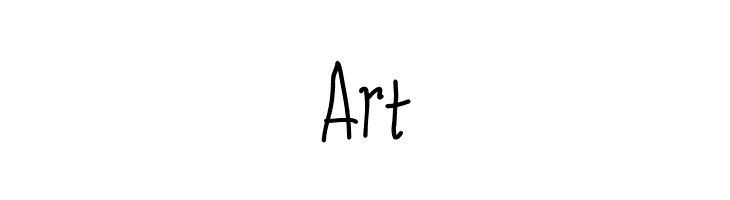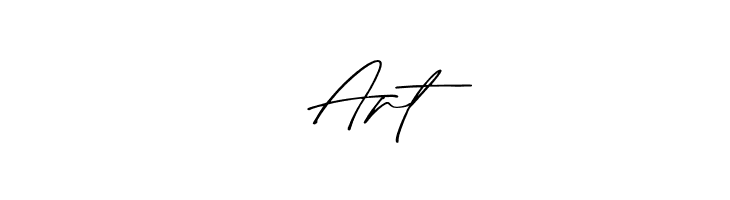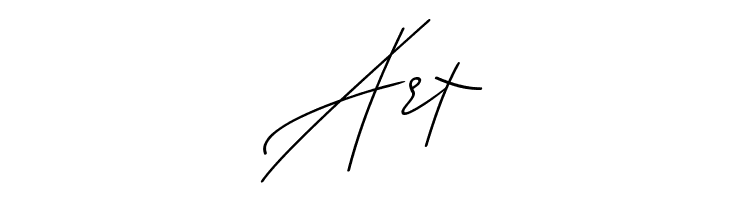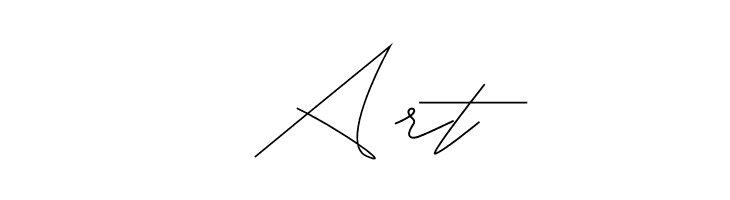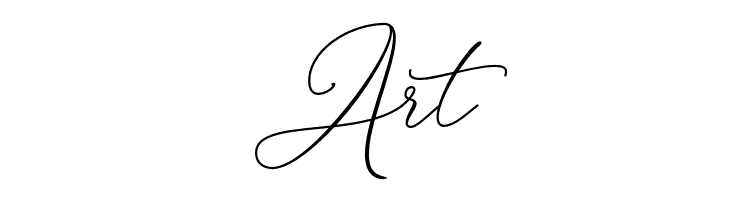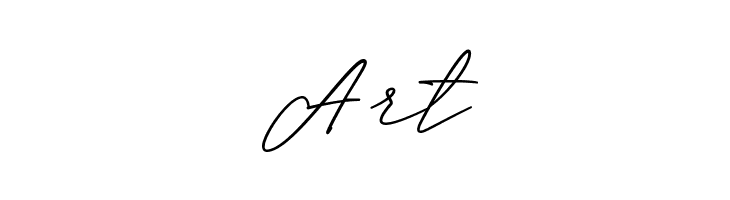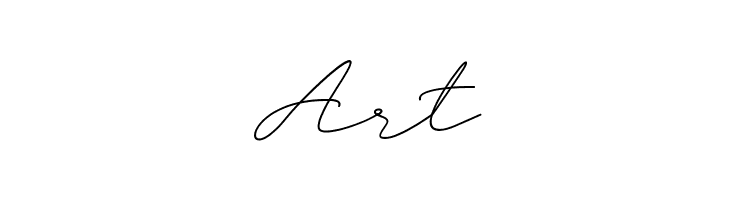
A playful, hand-drawn font mimicking children's handwriting with a whimsical and informal style.
A dynamic and expressive script font with a natural handwriting style.
A flowing, cursive script font with elegant, connected letters and a natural handwriting style.
An elegant, flowing script font with a natural handwriting style.
A graceful, cursive script font with a natural handwriting style.
An elegant script font with fluid, connected strokes and a natural handwriting style.
An elegant, flowing script font with a natural handwriting style.
A graceful script font with fluid, interconnected strokes and a natural handwriting style.
A flowing, elegant script font with a natural handwriting style.